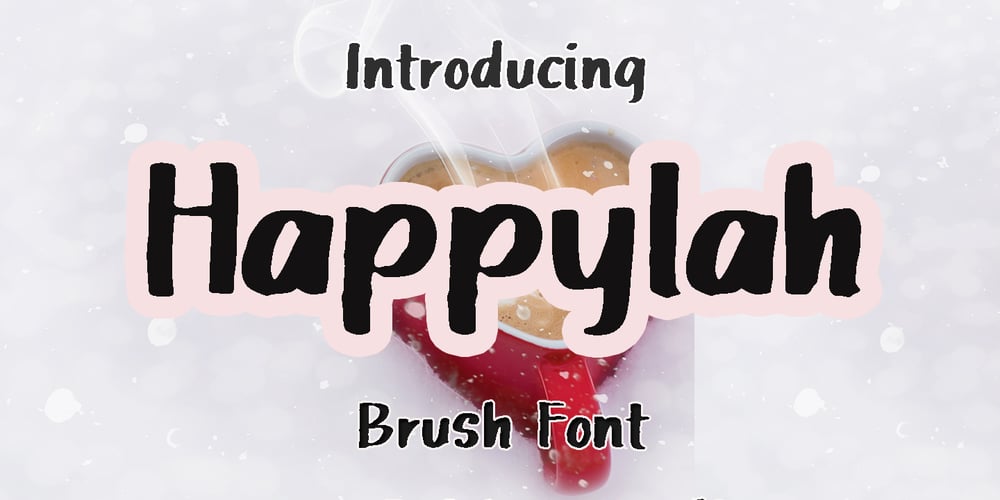
Happylah
Happylah font
Happylah Font Family was designed by Nasrullah and published by Sulthan Studio. Happylah contains 1 styles and family package options. Brush script is a handmade font style dance and then traces of life to have a Grungy brush and unique calligraphic shape, the writing style is very natural and simple. Brush script comes with upper and lower case letters and is equipped with punctuation and multiligual support.This cute Brush script can be used for various purposes. Such as titles, logos, correspondence, wedding invitations, letterhead, signage, labels, bulletins, posters, badges, Branding, Greeting Cards, etc.What’s included